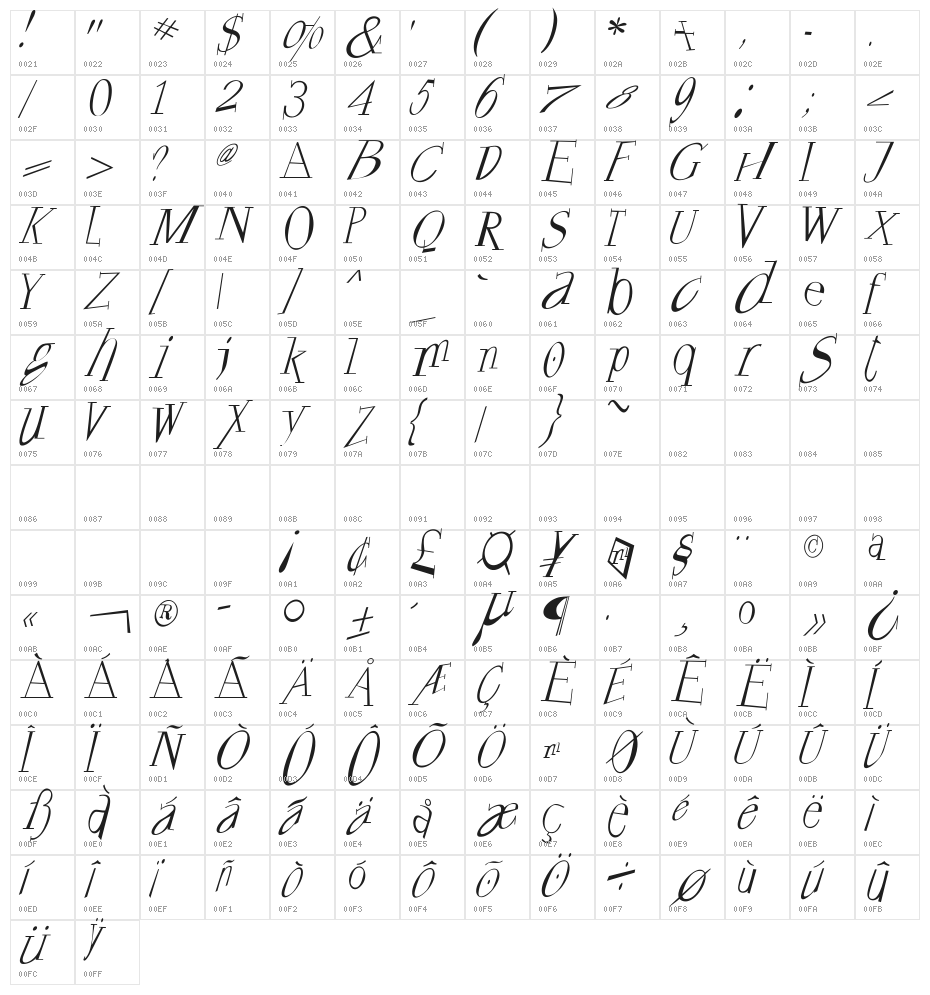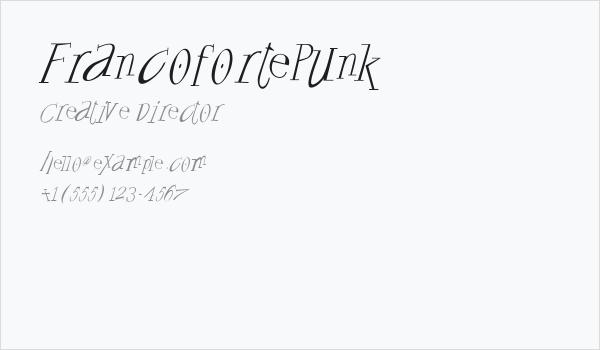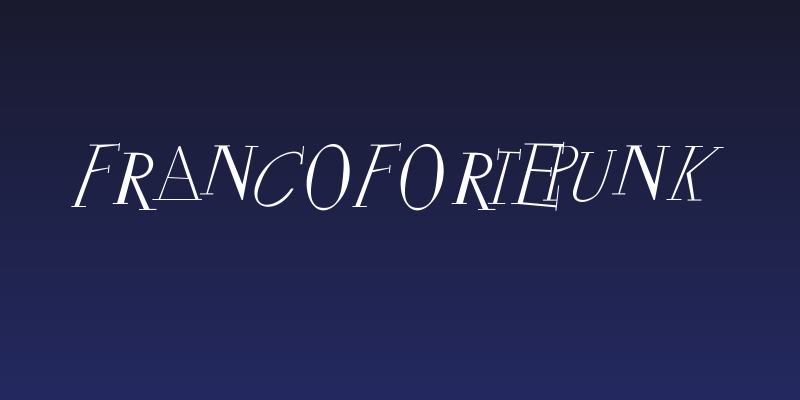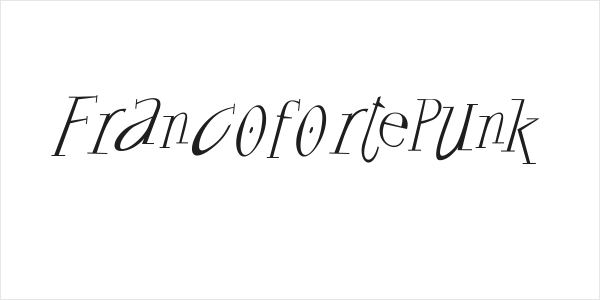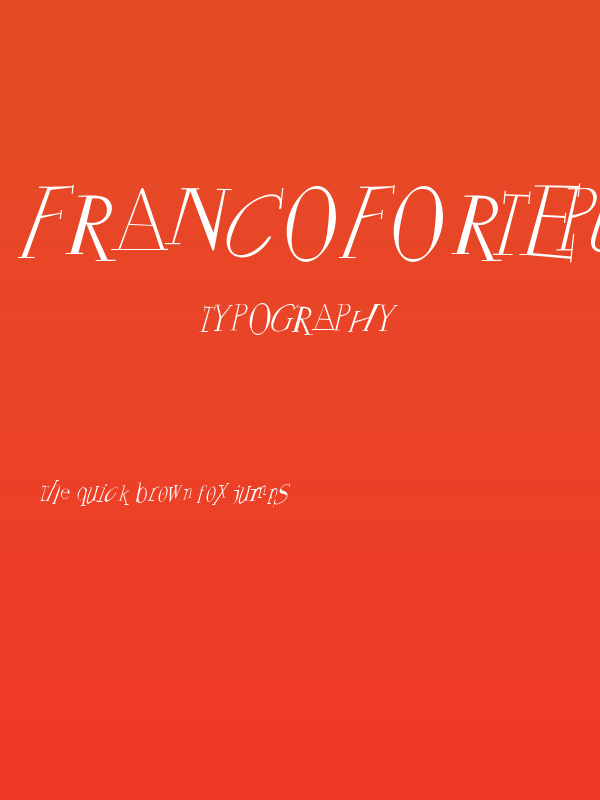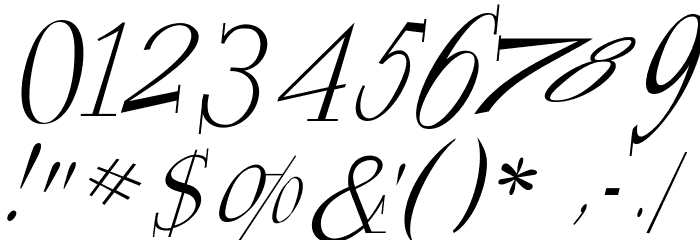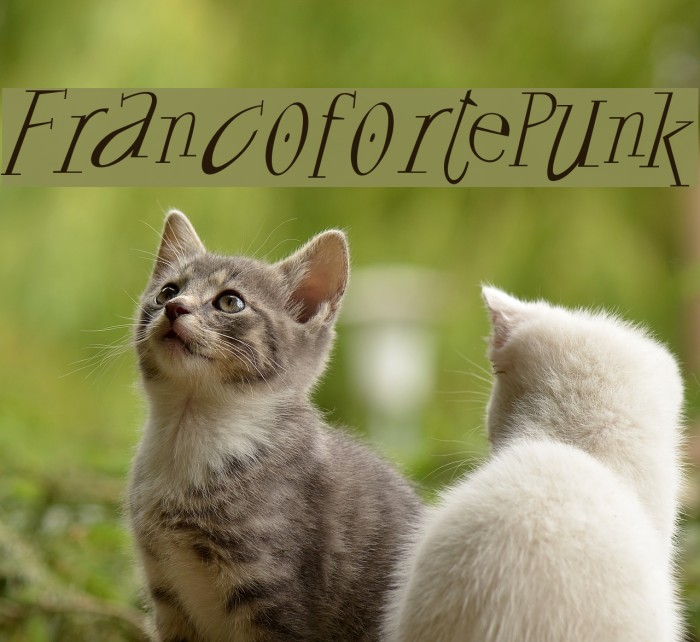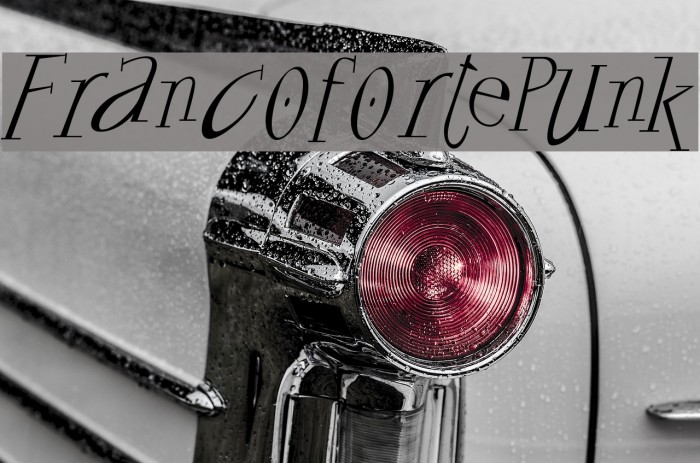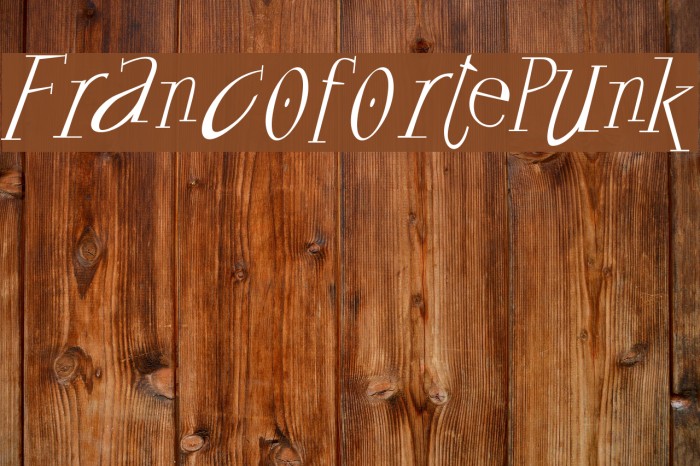
FrancofortePunk Font
FrancofortePunk Description
This font presents a dynamic and edgy style, characterized by its sharp, angular strokes and a slightly slanted orientation. The uppercase letters are bold and impactful, with distinct geometric shapes that give them a modern, rebellious flair. The lowercase letters maintain a consistent style, with some characters featuring unique, exaggerated curves that add to the font's punk aesthetic. The numerals are equally striking, with a mix of straight and curved lines that ensure readability while maintaining the overall theme. Special characters are crafted with the same attention to detail, making them seamlessly integrate with the rest of the font. This font's unique style makes it stand out, perfect for projects that require a bold and unconventional look.
| Overall Style | Modern, Punk |
| Proposed Projects | Ideal for music album covers, posters, fashion branding, and editorial design. |